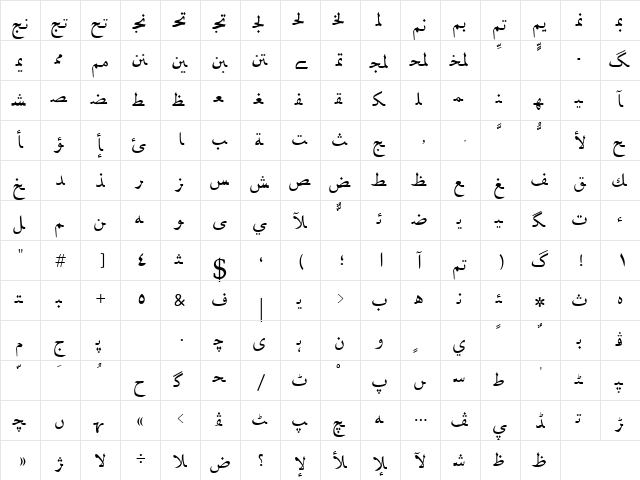
Baghdad Regular
Design Context for Baghdad Typeface
Baghdad offers clean, dependable letterforms without strong stylistic allegiance, making it a practical choice for designers who need flexibility.
Pro Tip: Use Baghdad in both headline and body roles to test its range before committing to a single application.